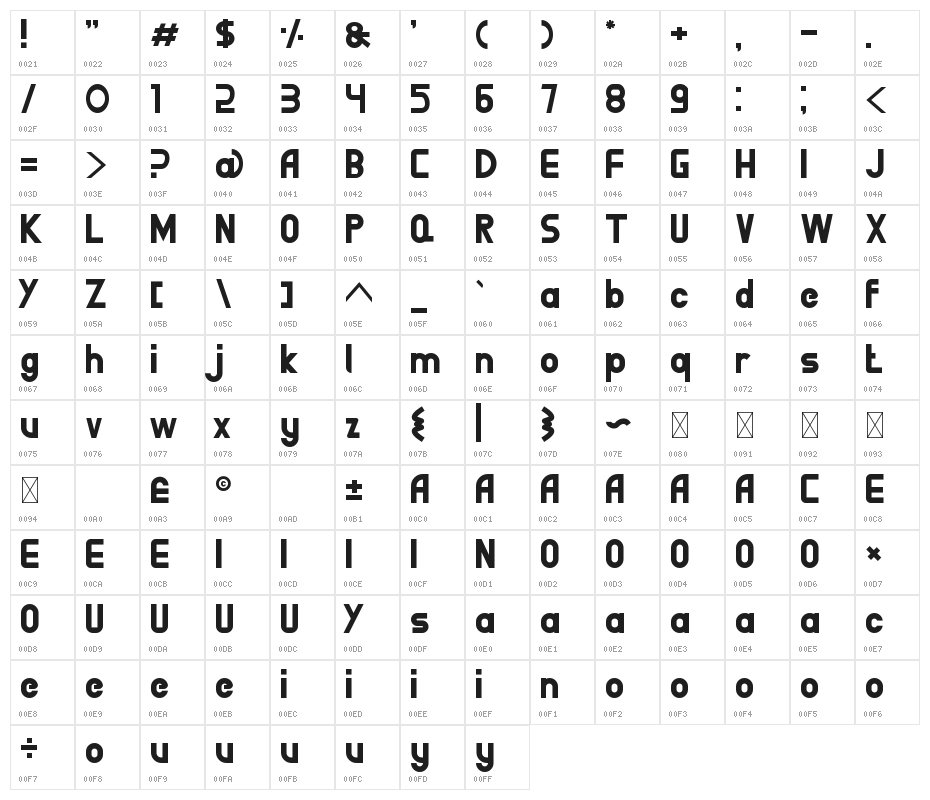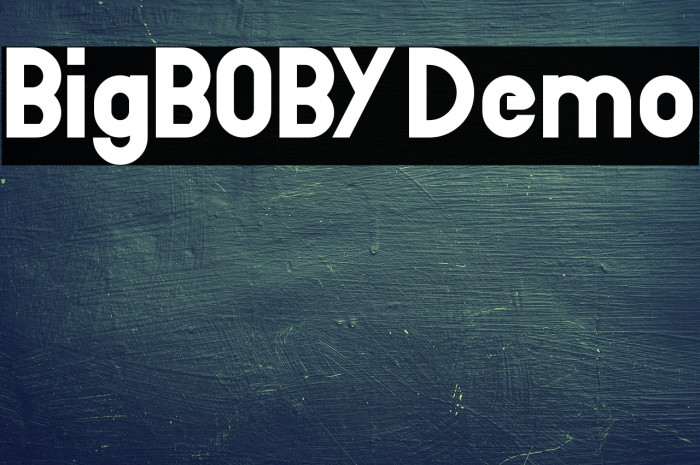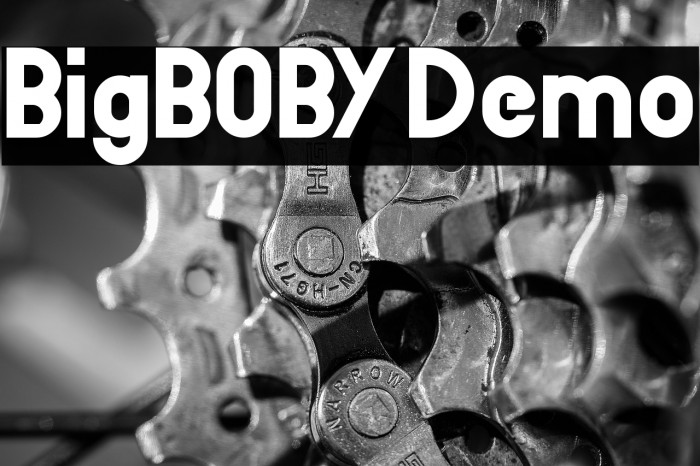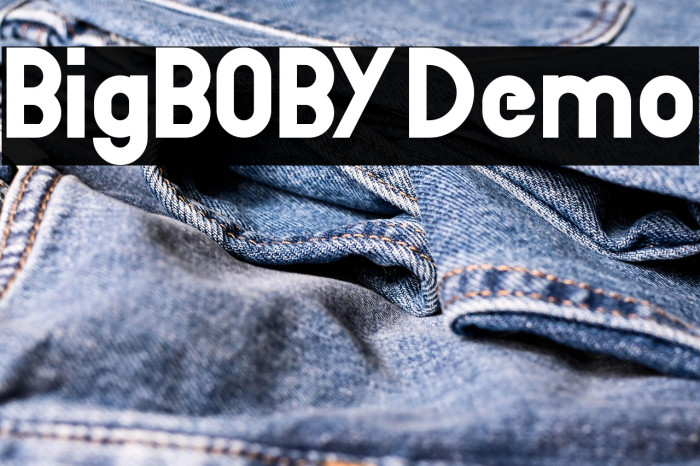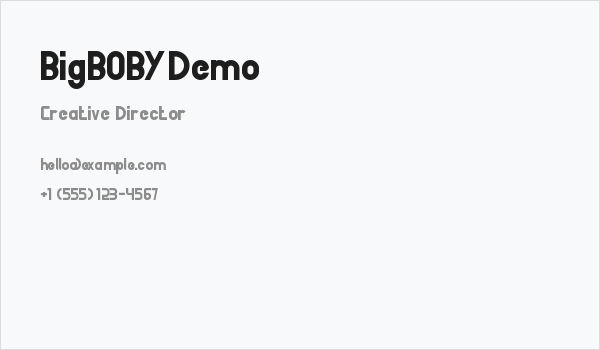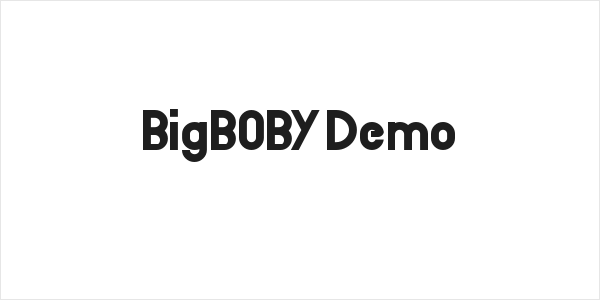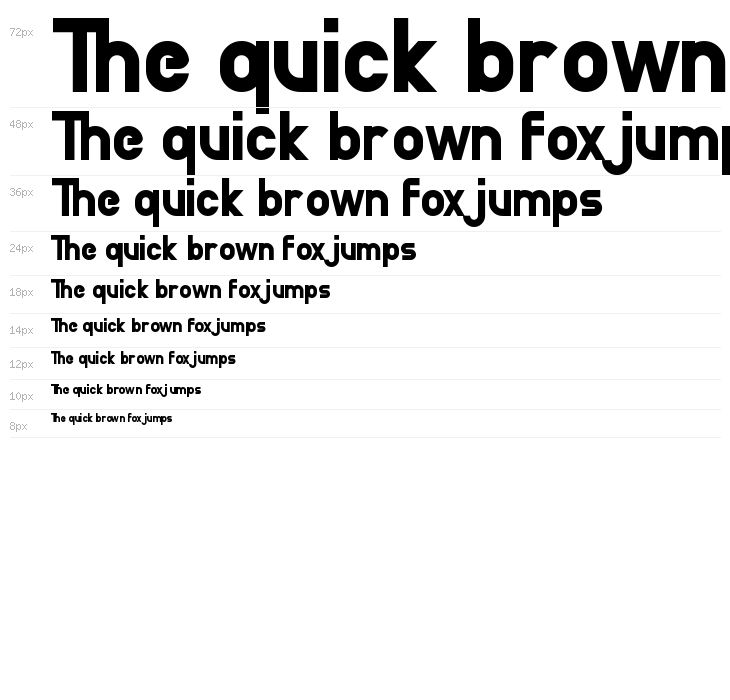
BigBOBY Demo Font
BigBOBY Demo Description
This font features a bold and modern design with a strong geometric influence. The characters are wide and rounded, giving a sense of stability and confidence. The uppercase letters are particularly striking, with a uniform height and consistent stroke width, while the lowercase letters maintain a similar width, creating a harmonious look. The numerals are clear and easy to read, with a distinctive style that matches the overall aesthetic. Special characters are well-integrated, maintaining the bold and rounded characteristics of the font. This typeface is versatile, suitable for various design needs where a strong and modern presence is desired.